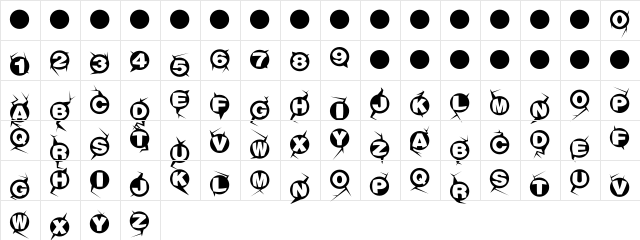
Machine-gun Regular Free Font
Machine-gun Regular
Machine-gun Family
Machine-gun Regular
Complete Machine-gun Regular glyph index. Displaying only characters natively supported by Machine-gun Regular font.
Design Context for Machine-gun
Machine-gun is a composed and adaptable typeface that performs quietly and consistently across a wide range of design contexts.